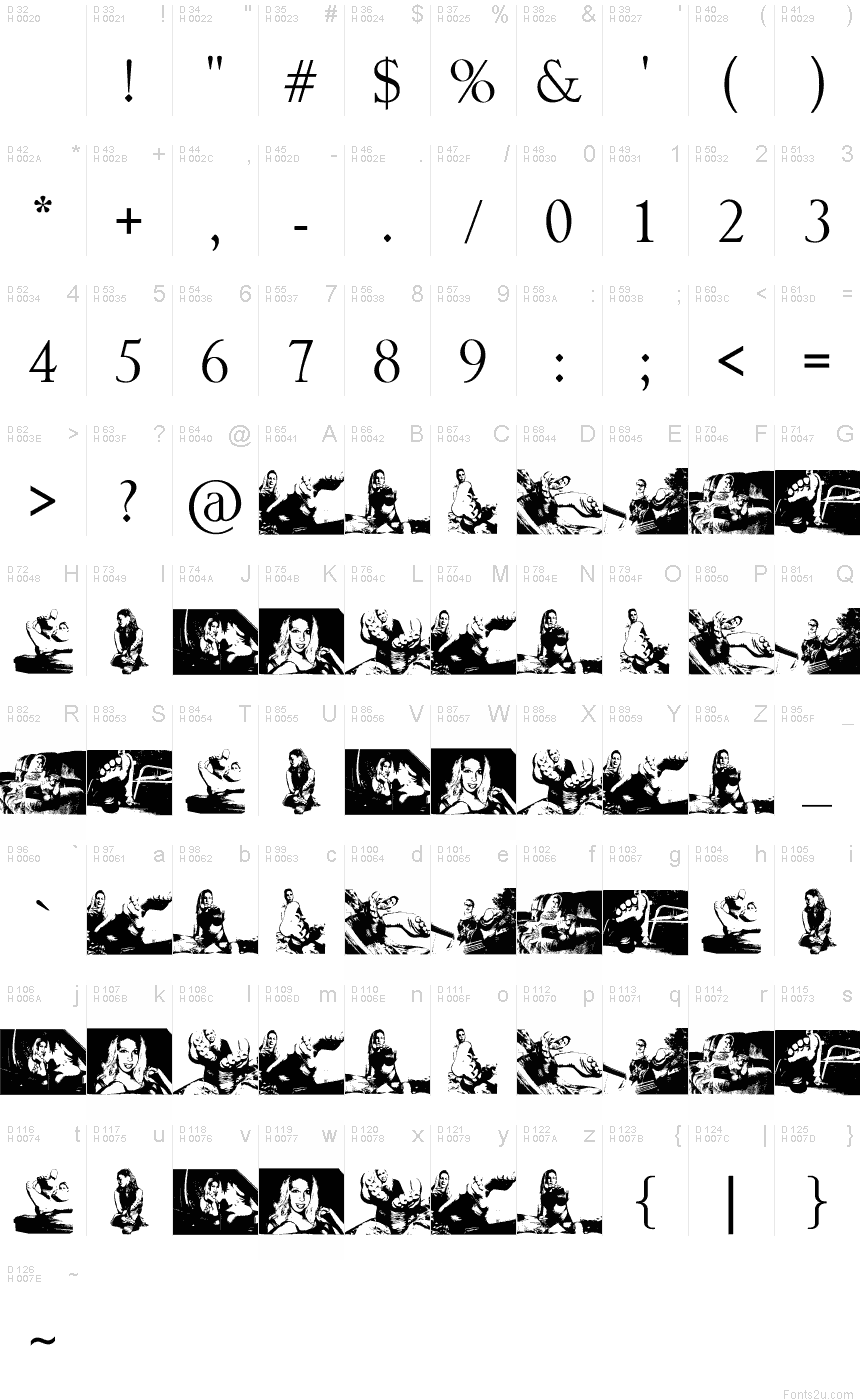
Karyna Feet is a free portrait dingbat font assembled from images of women in posed, fashion-conscious stances. Stark silhouettes and cropped photographic details give the figures a rough, photocopied finish.
A fashion boutique or nightlife venue could use these pictorial characters in branding and event posters. They also suit magazine collages and music merchandise. The recurring mix of glamorous poses and grainy reproduction lets each symbol function as a compact piece of retro editorial imagery.